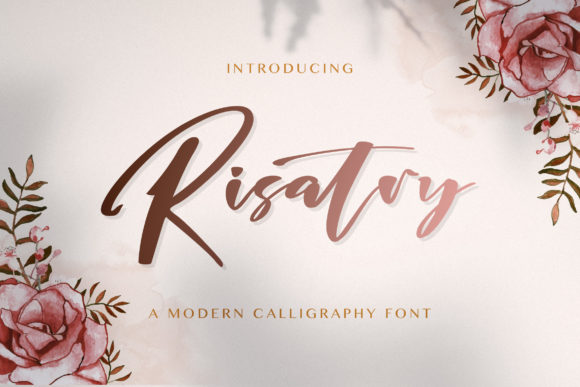
In a world craving authenticity, Risatry Font emerges as a beacon of originality, inviting you on a journey of creative expression. With its captivating handwritten style, Risatry transcends the ordinary, becoming a cherished companion for your digital artistry.
Beyond its undeniable beauty, Risatry possesses an innate versatility, adapting seamlessly to a myriad of design endeavors. Whether you're crafting heartfelt messages, designing eye-catching logos, or seeking to add a touch of elegance to your social media presence, Risatry rises to the occasion, leaving an indelible mark on your creations.
The masterminds behind Risatry, StringLabs, have meticulously crafted each letterform, ensuring that Risatry remains not just a font, but an extension of your artistic vision. Its graceful curves and elegant flourishes evoke a sense of timeless sophistication, while its contemporary flair keeps it firmly rooted in the present.
Risatry's PUA encoding opens up a world of possibilities, allowing you to effortlessly access the full repertoire of glyphs and swashes, empowering you to unleash your creativity without boundaries. Experiment with different combinations, explore unique character designs, and let your imagination run wild.
Embrace Risatry Font, and embark on a creative odyssey where your ideas take center stage. Its modern aesthetic and unparalleled versatility will elevate your designs to new heights, leaving a lasting impression on your audience. Make Risatry your font of choice, and experience the transformative power of authentic expression.